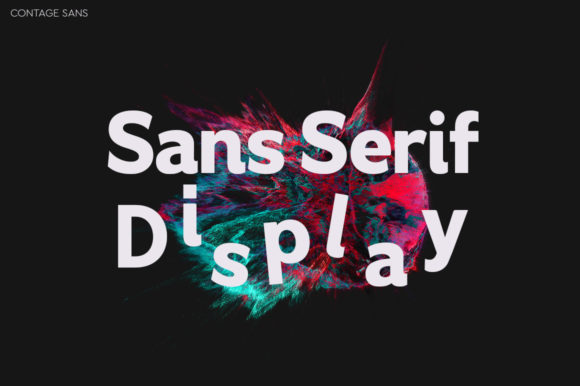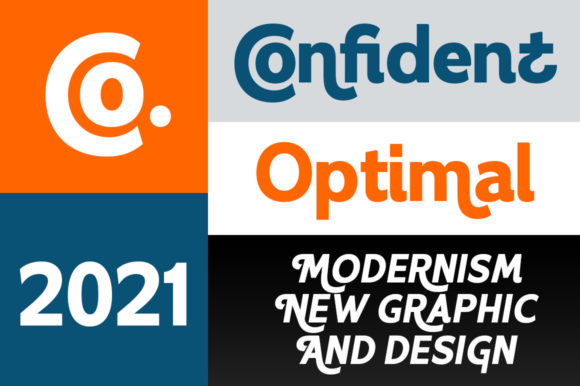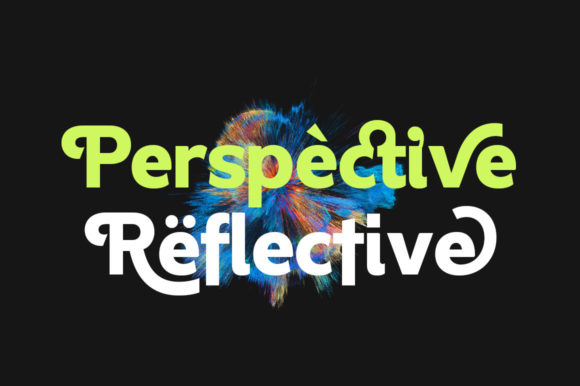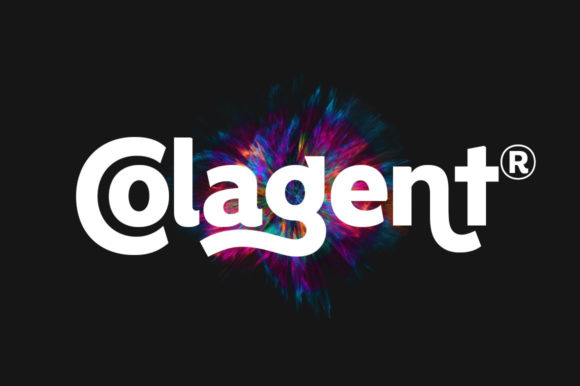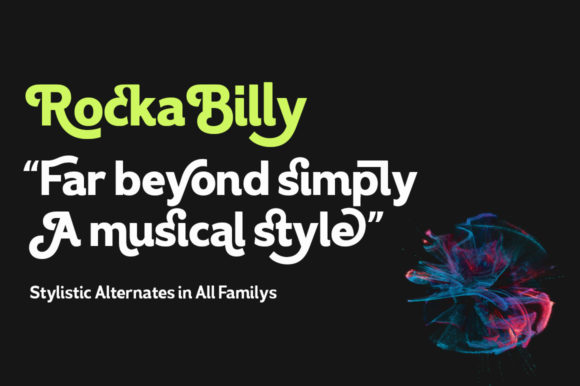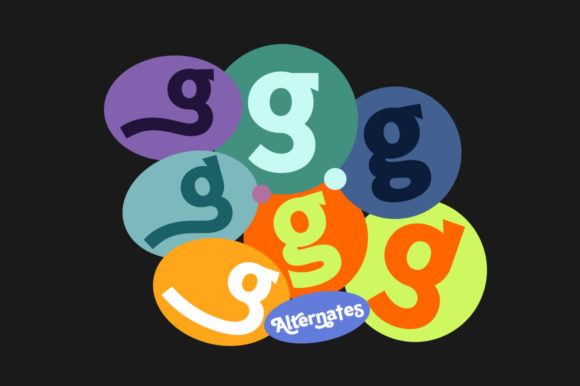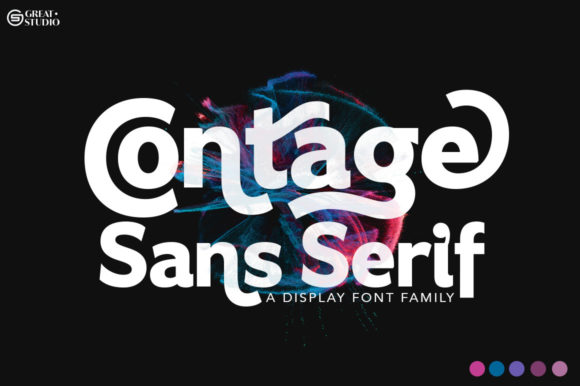
Introducing Contage Font: The Ultimate Display Font for Modern Designs
In the world of typography, a good font can make all the difference in creating a lasting impression. For designers and crafters, finding the perfect font that combines modernity, minimalism, and readability can be a daunting task. However, look no further than Contage Font, a superb display font family designed to elevate your designs to the next level.
What is Contage Font?
Contage is a meticulously crafted display font family that boasts a clean, geometric look, perfect for a wide range of applications. Its modern and minimal design ensures that it can seamlessly integrate into any setting, from fashion and magazine designs to logos, branding, headers, titles, and corporate brochure designs.
Key Features of Contage Font
- Clean Geometric Look: Contage Font features a clean and geometric design, making it perfect for designs that require a modern and sophisticated look.
- Optimal Readability: The font is carefully crafted to ensure optimal readability, even at smaller sizes, making it ideal for body text and headlines.
- Modern and Minimal: Contage Font’s modern and minimal design ensures that it can complement a wide range of design styles, from simple and elegant to bold and complex.
- Versatile: This display font family is perfect for various applications, including fashion, magazine, logo, branding, headers, titles, and corporate brochure designs.
Why Choose Contage Font?
- Unique and Memorable: Contage Font’s unique design ensures that your brand or design stands out from the crowd, making it more memorable for your audience.
- High-Quality: As a professionally designed font family, Contage Font guarantees high-quality typography that reflects your brand’s professionalism and attention to detail.
Use Cases for Contage Font
Contage Font’s versatility makes it suitable for a wide range of design projects. Here are some use cases to inspire you:
- Fashion Brand Logo: Create a stunning logo for your fashion brand with Contage Font, conveying modernity and sophistication.
- Magazine Design: Use Contage Font as a headline font for your magazine design, adding a touch of elegance and refinement.
- Corporate Brochure: Elevate your corporate brochure design with Contage Font, showcasing your brand’s professionalism and attention to detail.
- Branding and Identity: Develop a consistent brand identity with Contage Font, using it across various marketing materials and platforms.
| Font Name | Contage Font |
| Author | Great Studio |
In conclusion, Contage Font is an exceptional display font family that offers a perfect blend of modernity, minimalism, and readability. Its versatility and high-quality design make it an excellent choice for designers and crafters looking to elevate their designs. Whether you’re working on a fashion brand logo, magazine design, corporate brochure, or branding project, Contage Font is sure to impress.